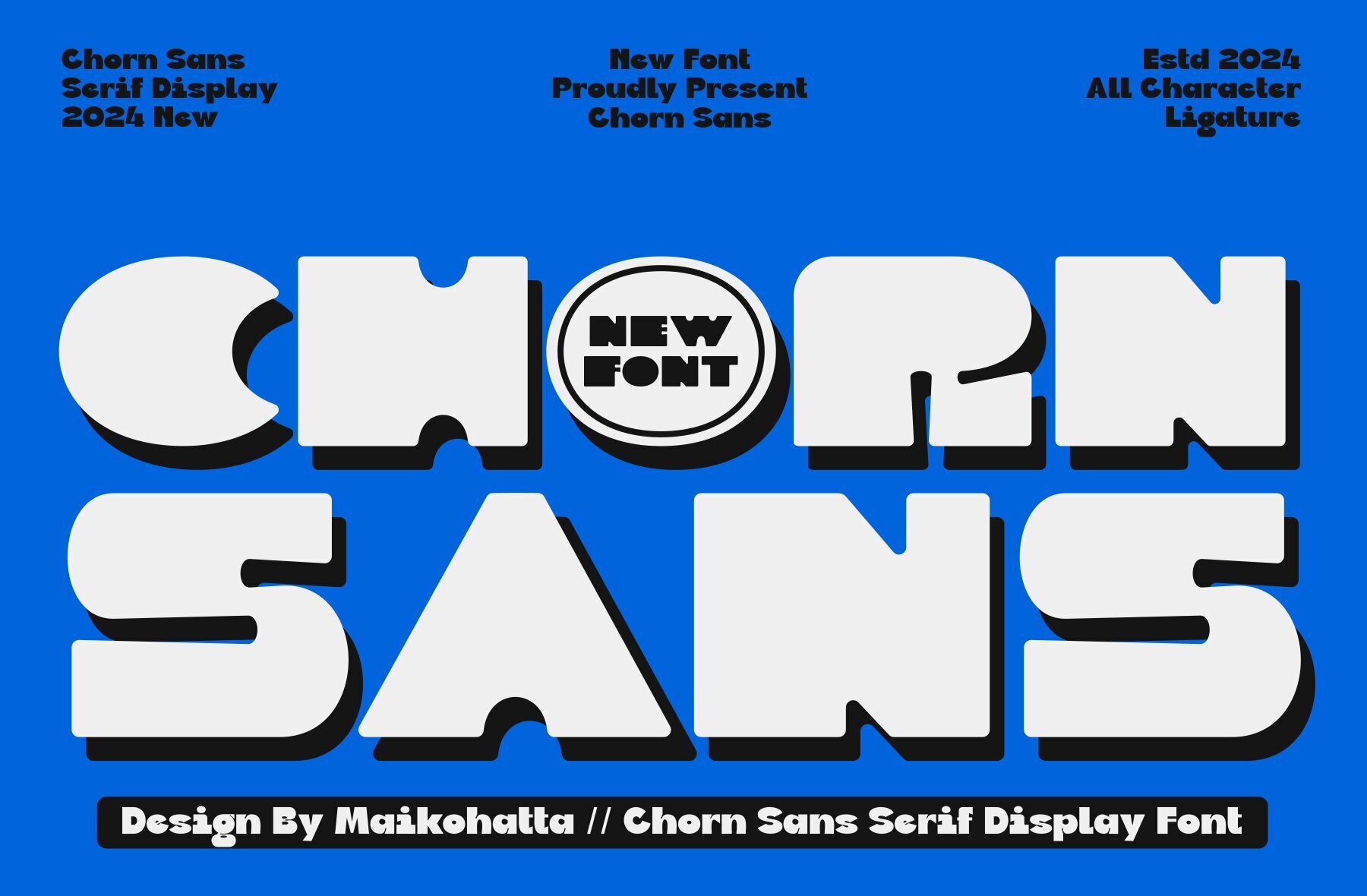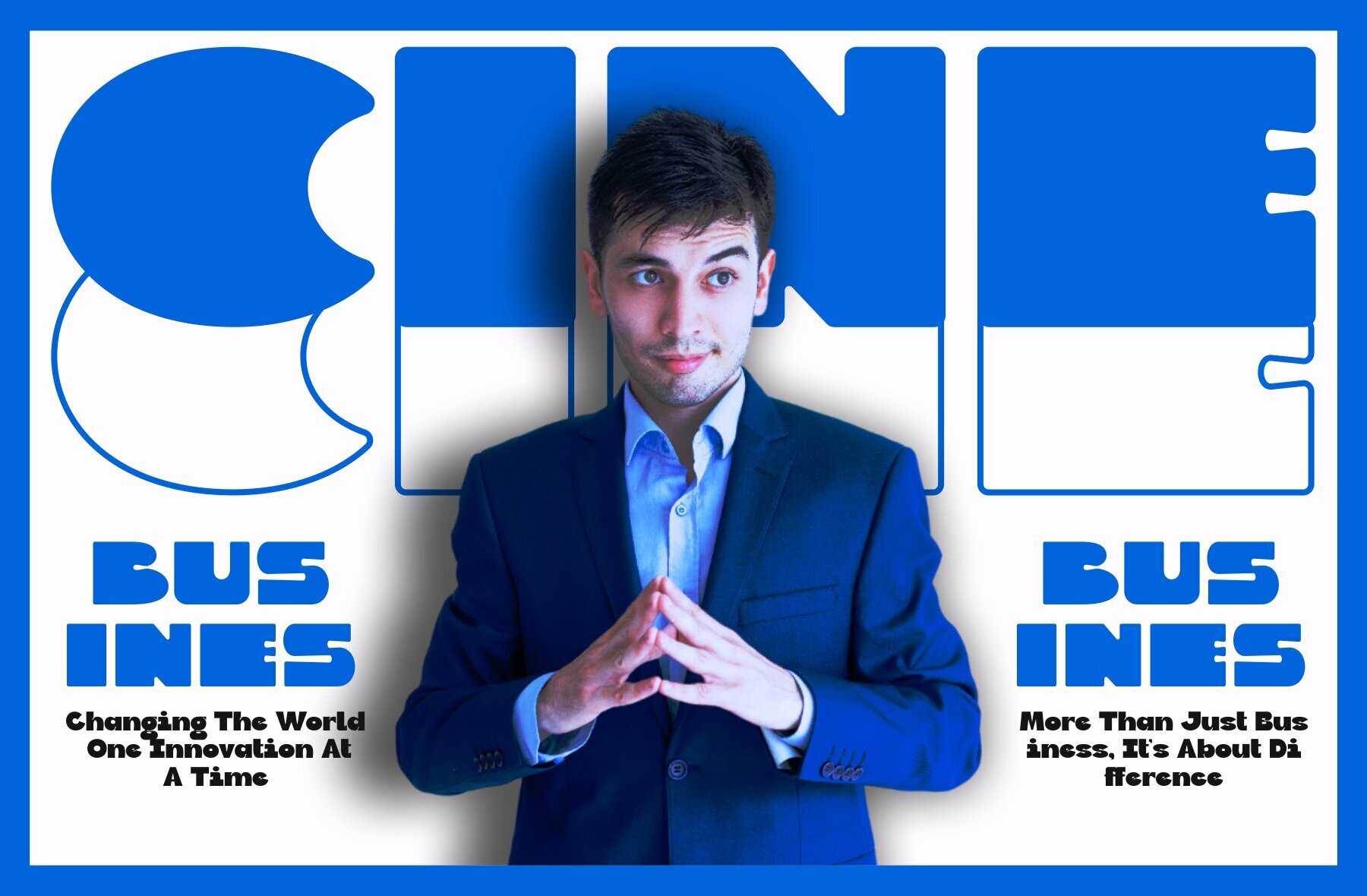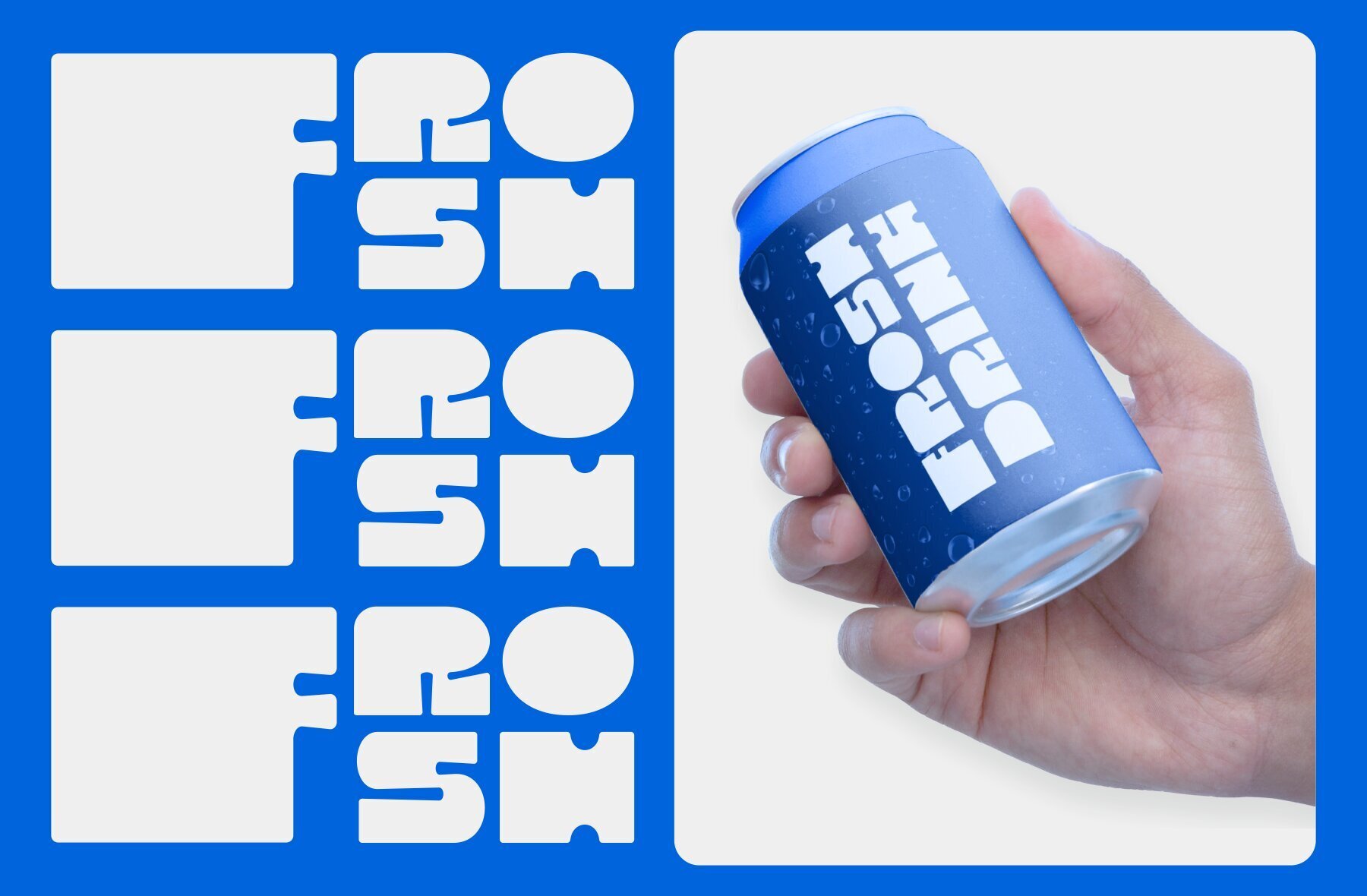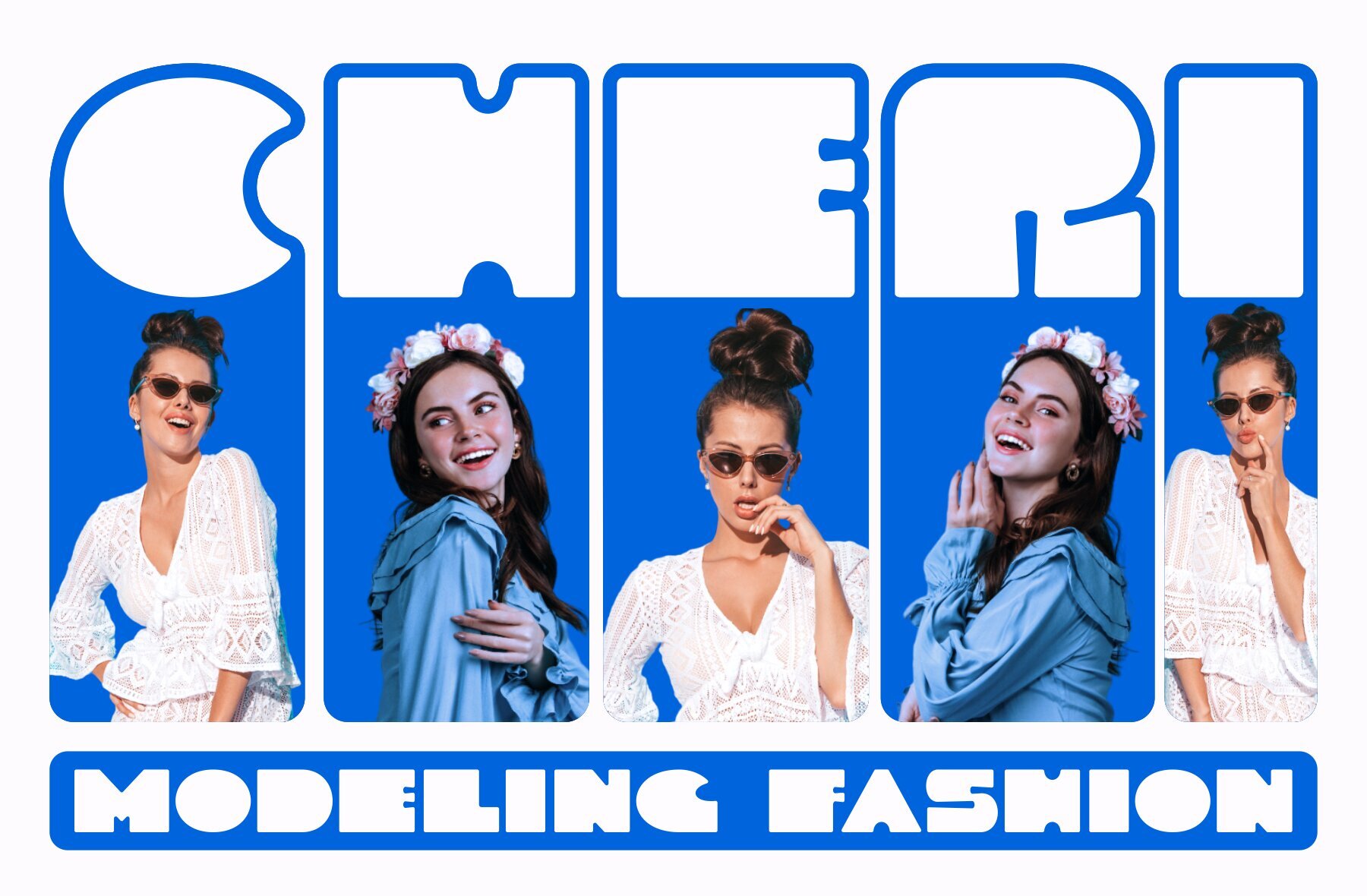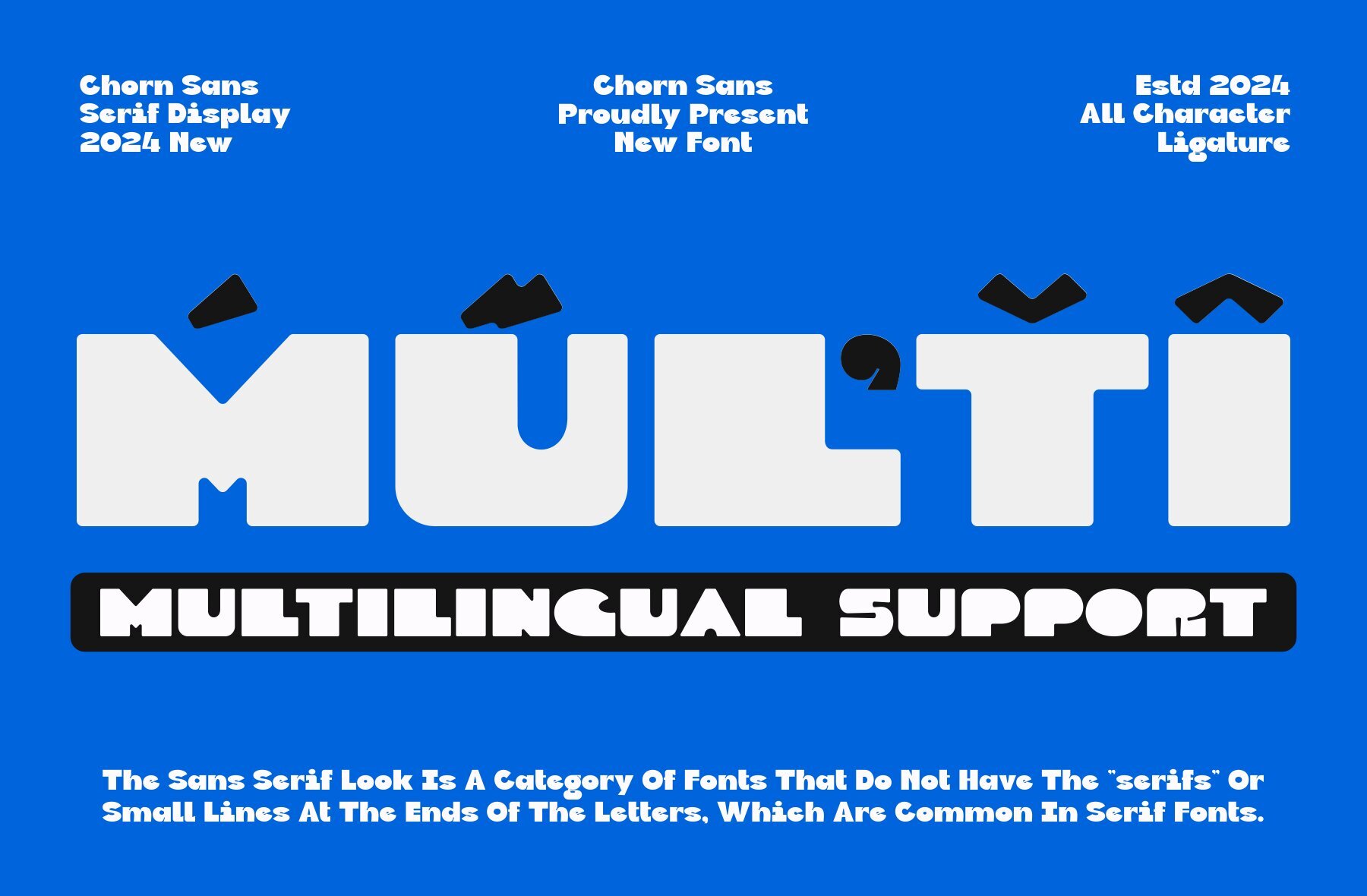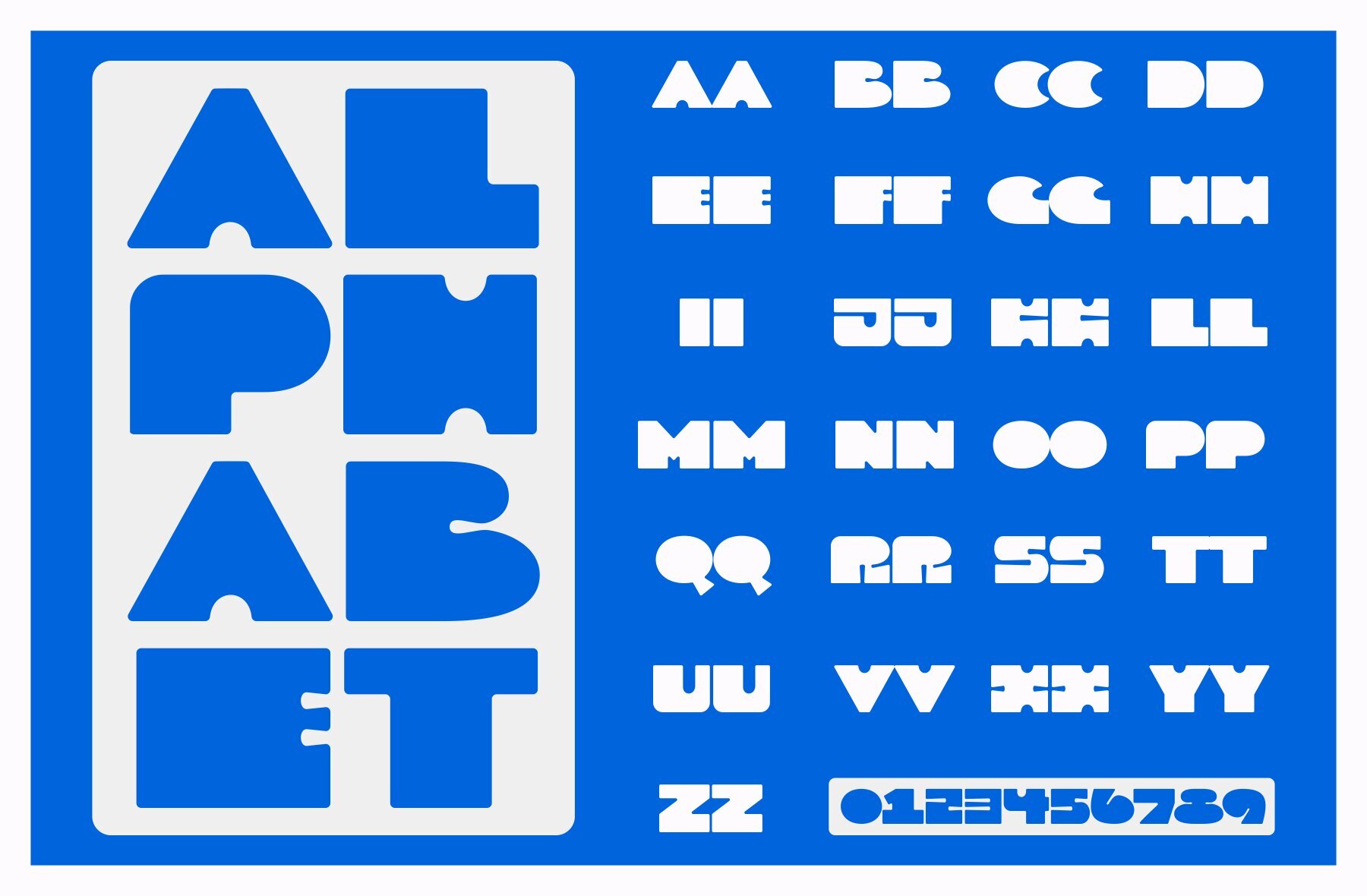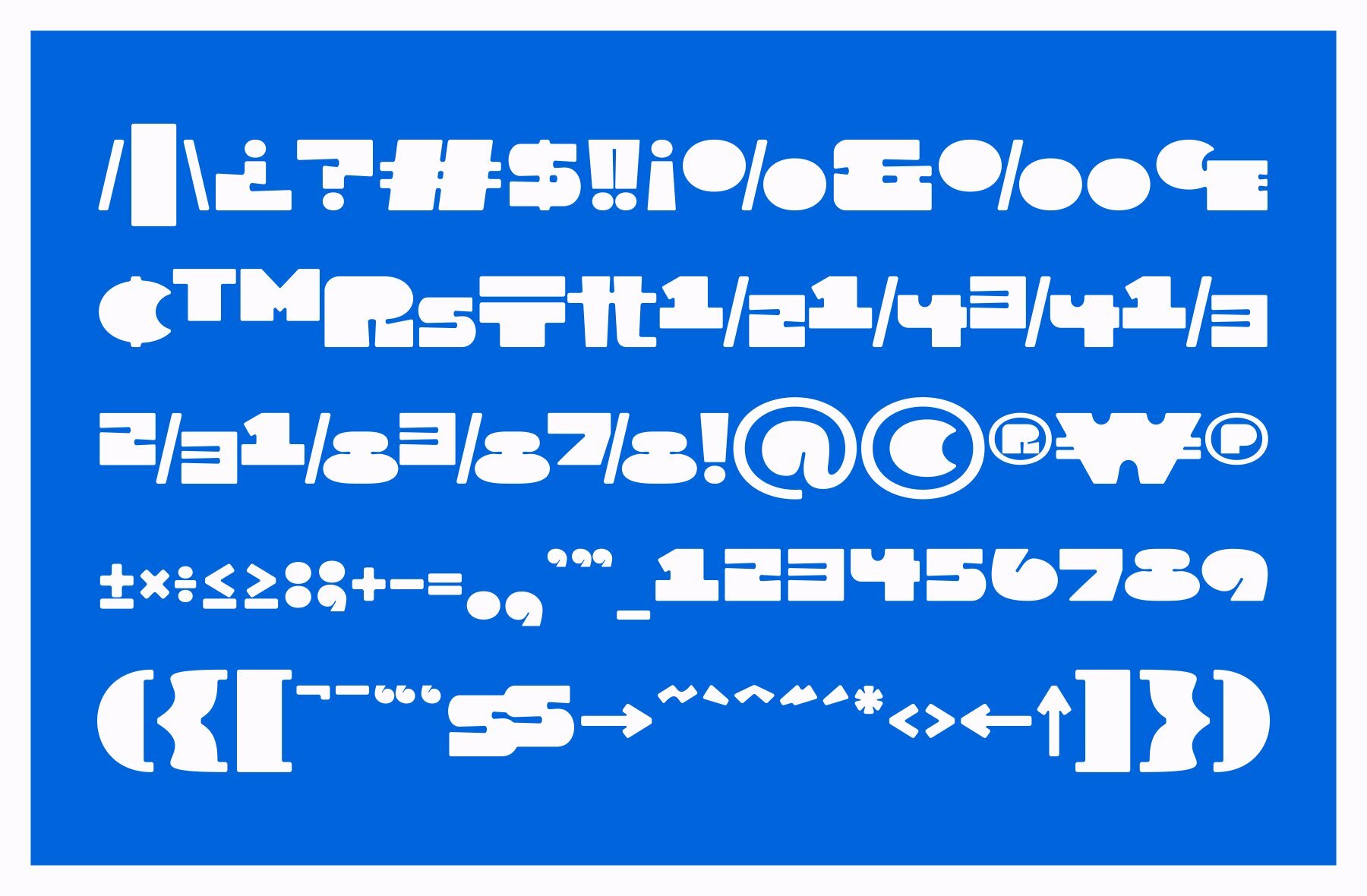
Chorn Font
CHORN
This bold and rounded sans-serif font is ideal for creating eye-catching headlines and dynamic display titles. Its modern and geometric style makes it perfect for branding projects, logos, and advertisements. The clean and contemporary design ensures legibility while delivering a stylish and high-impact aesthetic for minimalist graphic design efforts or striking posters.